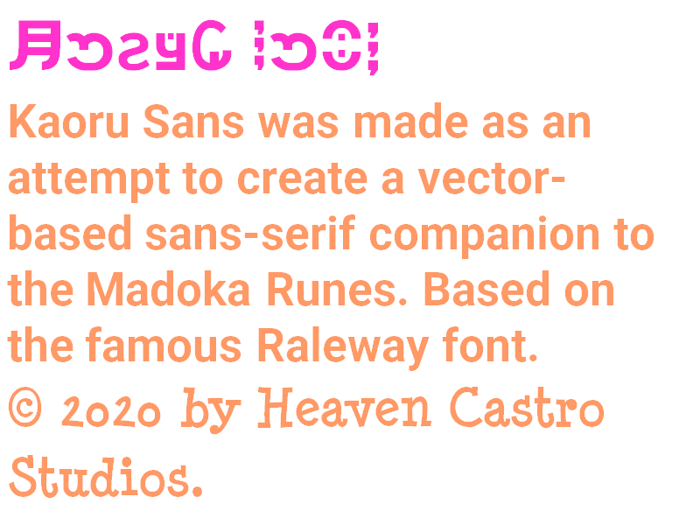
Kaoru Sans Font
Kaoru Sans is a new Madoka Runes font based on the famous open-source sans-serif font, Raleway. With almost all of the letters have a different case, 'X' did not have a lowercase version of it, so it was shared with lowercase.
Over the years since the 2011 anime series, Puella Magi Madoka Magica has come into existence, but no one has ever created more of the Madoka Runes fonts. A new vector-based sans-serif Madoka Runes font is here. Kaoru Sans is a sans-serif tribute to Gekidan Inu Curry's memorable Madoka Runes. It has nifty uppercase and lowercase versions in almost all of its letters. It was named after the Puella Magi Kazumi Magica's character, Maki Kaoru. For now, this font supports English, Tagalog, German, Malay, Indonesian, Dutch, Finnish and Swedish only. No other languages are supported. But wait, this isn't the first time I've made it like that!